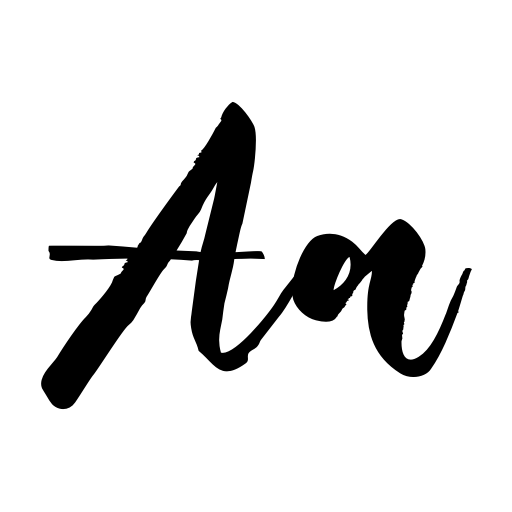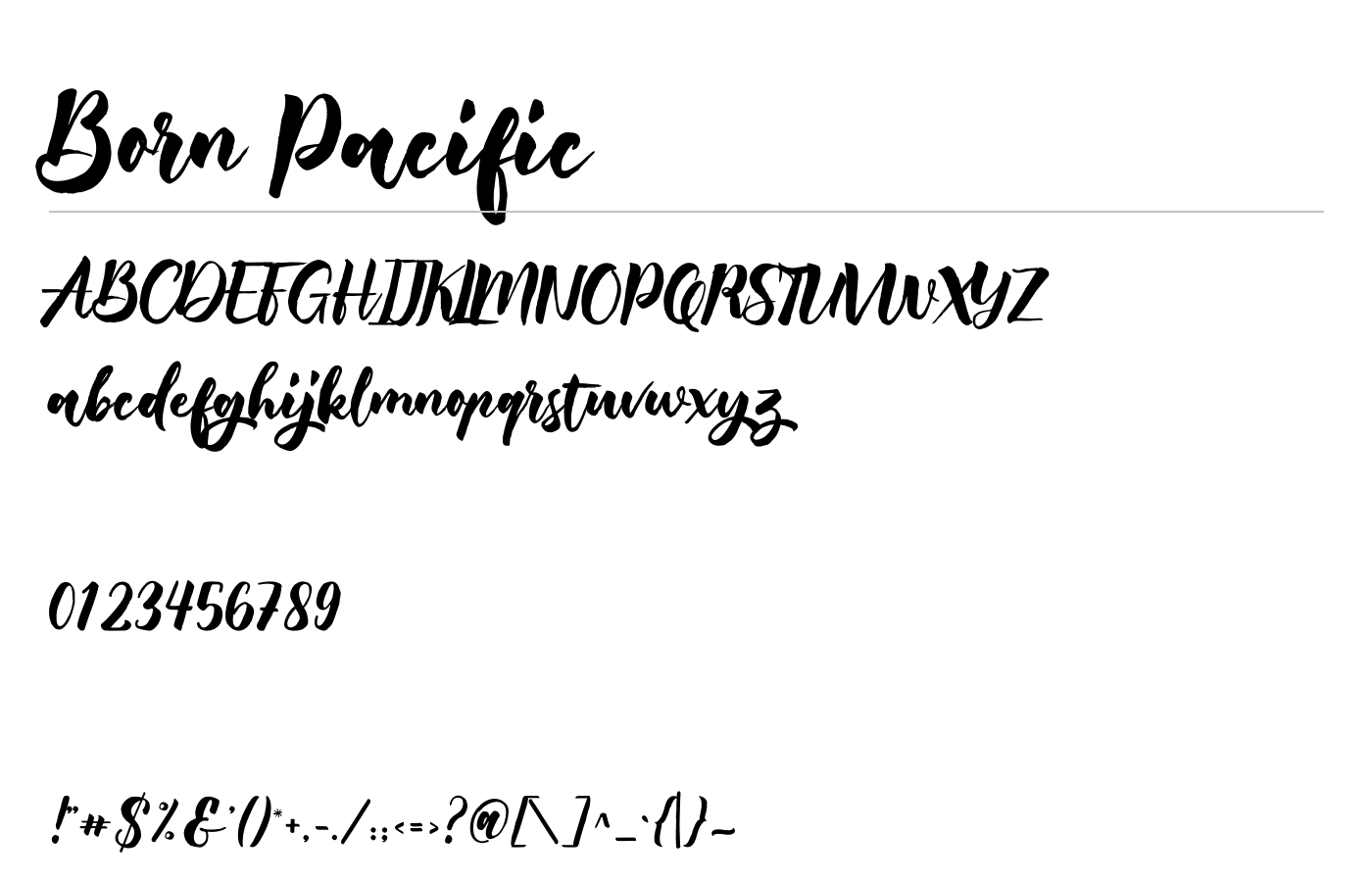
Born Pacific is a lively and modern script font featuring bold, brush-style strokes with a natural, hand-painted feel. Its energetic letterforms and high contrast create a dynamic yet approachable look, perfect for adding personality to logos, packaging, and creative headlines. This font works best in playful and casual designs where an expressive, handcrafted vibe is desired.
Born Pacific Font